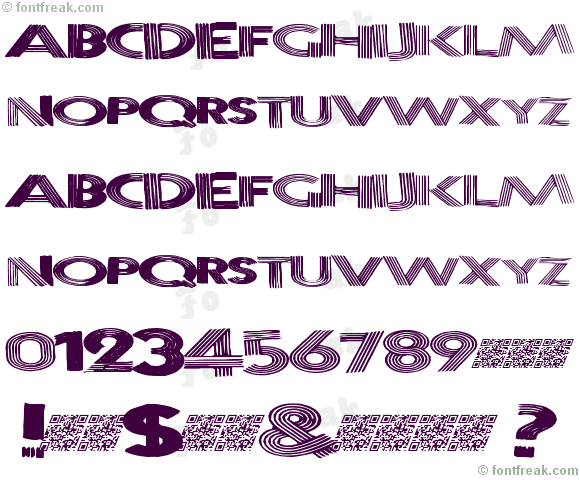
NewsWorthy
The NewsWorthy font by Xerographer Fonts is a striking display typeface that captures attention with its unique design. This font belongs to the decorative category, featuring a playful yet sophisticated aesthetic. The visual characteristics of NewsWorthy include a mix of bold and slender strokes, creating a dynamic contrast that enhances its visual appeal. The carefully designed spacing between the letters ensures readability while maintaining a lively rhythm in the typography. Decorative elements, such as the alternating line thickness, lend a sense of movement and energy to the text, making it stand out in any application.
This font is perfect for a variety of creative projects. It excels in use cases such as movie posters, where its bold presence can convey excitement and drama. Additionally, NewsWorthy works beautifully for event flyers, adding a touch of flair to local gatherings or promotions. Restaurant menus can also benefit from this font's eye-catching style, inviting diners to explore the offerings. Moreover, it’s an excellent choice for social media graphics, helping content creators grab the attention of their audience with its distinctive look.
The target audience for the NewsWorthy font includes graphic designers seeking a fresh and engaging typeface for their projects, as well as small business owners looking to elevate their branding materials. Content creators will find this font useful for anything from blog headers to promotional graphics.
What truly sets the NewsWorthy font apart is its ability to blend fun and professionalism, striking a balance that appeals to a wide range of users. With its unique design and versatility, the NewsWorthy font free download is an opportunity not to be missed for anyone looking to make a statement in their typography.